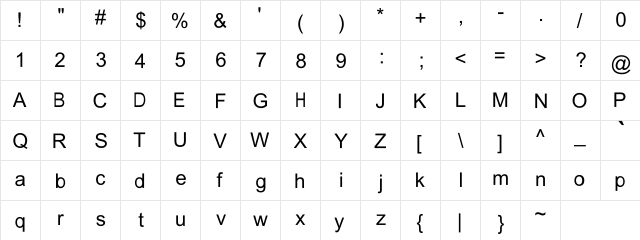
Indic Unicode Regular
| Foundry | India-n-Indian |
| Designer | Sanjay Khatri |
Design Context for Indic Unicode Typeface
Indic Unicode uses fixed-width spacing throughout, giving it the structured, systematic character associated with coding environments and technical documentation.
A natural fit for code editors, technical documentation, developer-focused branding, and terminal-inspired UI.
Pro Tip: Pair Indic Unicode with a proportional sans for UI contexts where code-style labels and regular body copy need to coexist.